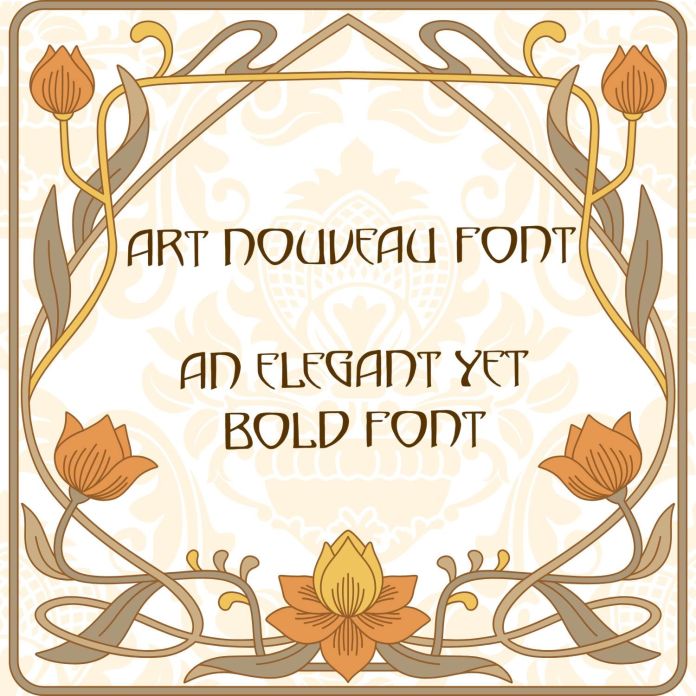
An Elegant Art Nouveau font Inspired by the flowing lines, organic curves, and intricate details of the late 19th-century design movement, this hand drawn typeface is perfect for vintage-inspired branding, posters, invitations, book covers, and more. Featuring tall, elongated letters with graceful curves, this font captures the charm of classic Parisian signage and decorative typography. Add a touch of timeless sophistication to your designs with this ornate and artistic lettering style!